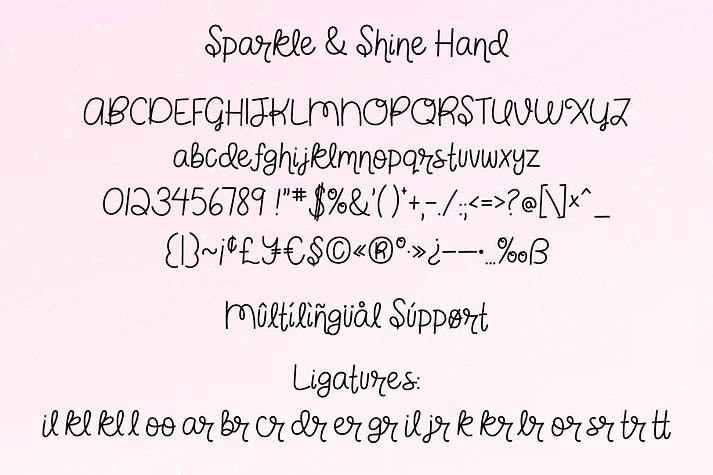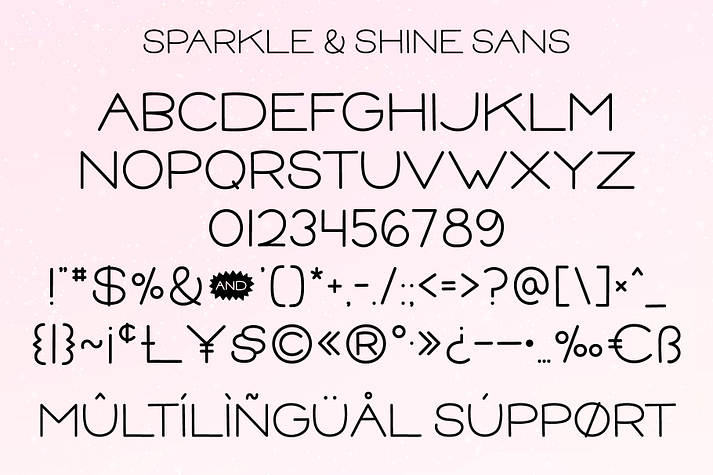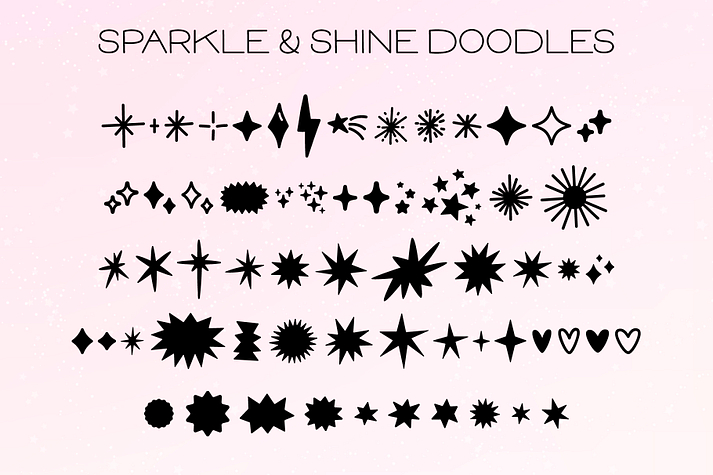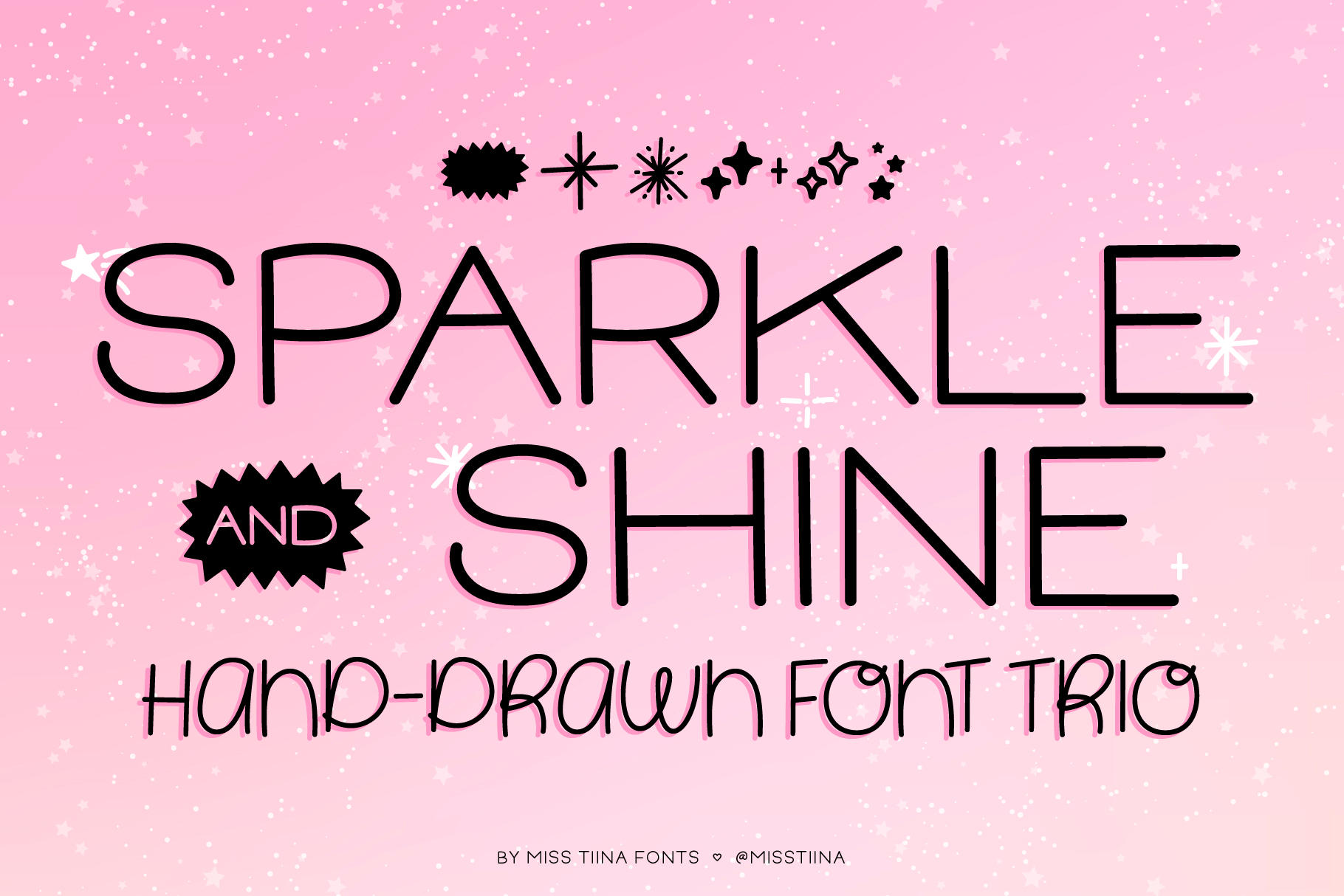
MTF SPARKLE & SHINE TRIO
MTF Sparkle & Shine Trio is a brush display and dingbat font family. This typeface has three styles and was published by Miss Tiina Fonts .
Sparkle & Shine Font Trio is sure to bring happiness and joy to any project with it’s playful charming characters! It’s perfect for posters, t-shirts, home decor, planners, kids projects and so much more!
This font trio includes: Sparkle and Shine Hand, Sparkle and Shine Sans, and Sparkle and Shine Doodles - 62 fun and sparkly dingbat designs!